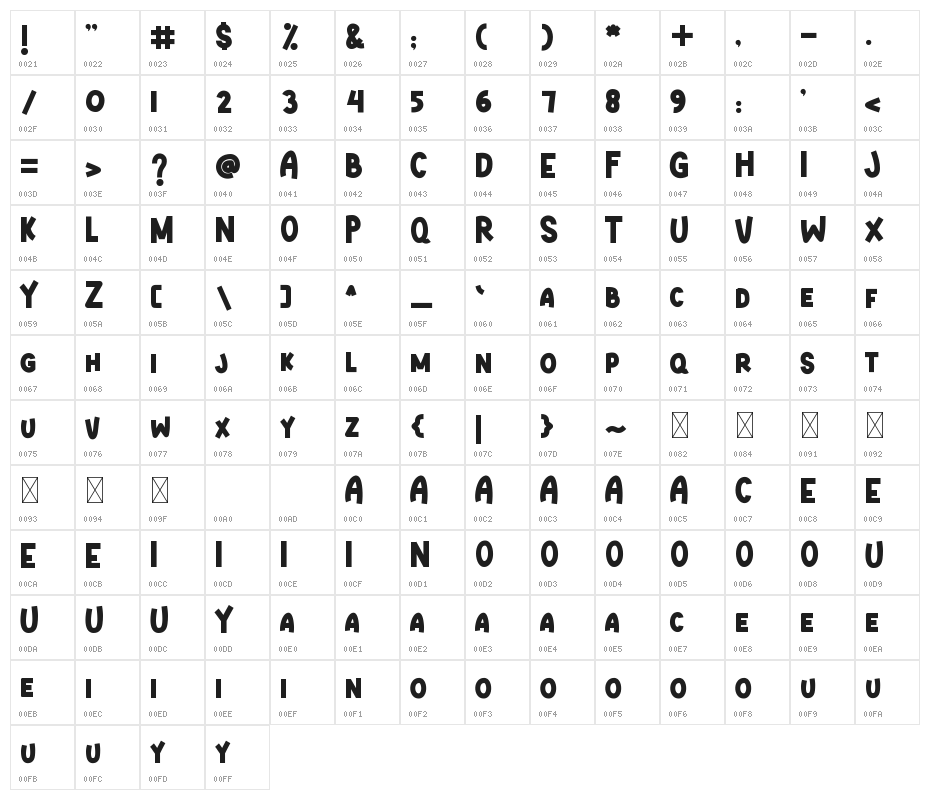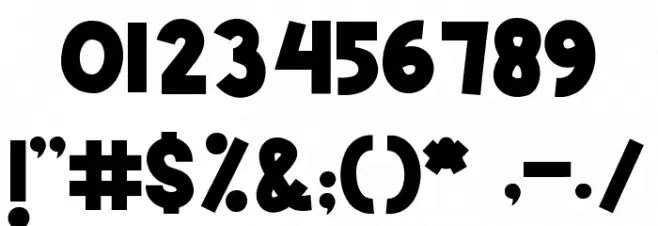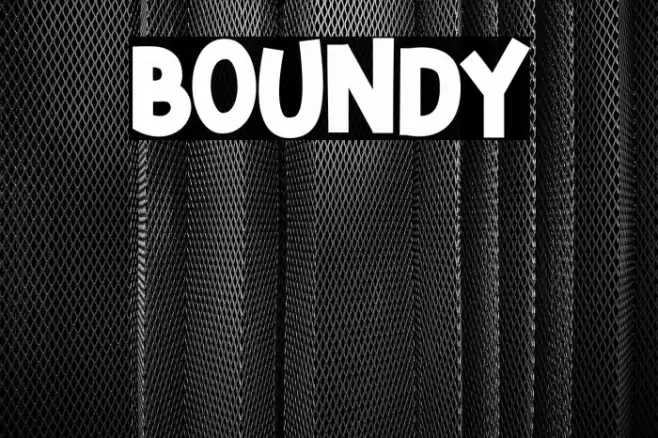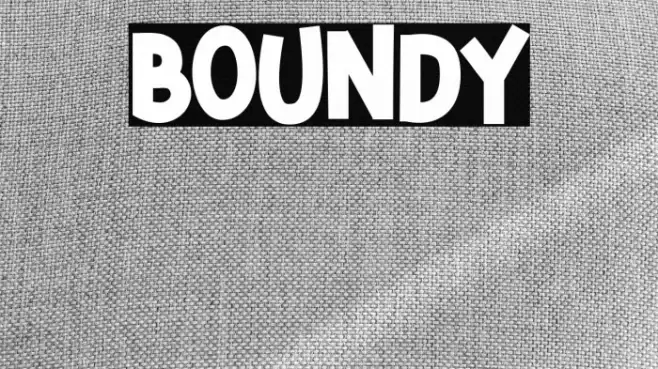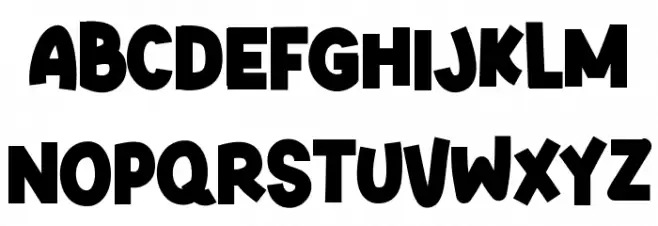
BOUNDY Font
BOUNDY Description
A bold, playful, and chunky display font with irregular, exaggerated letterforms that give it a fun and informal appearance.
| Overall Style | Playful, Informal, Cartoonish |
| Use Case | Headlines, Posters, Logos, Children's products |